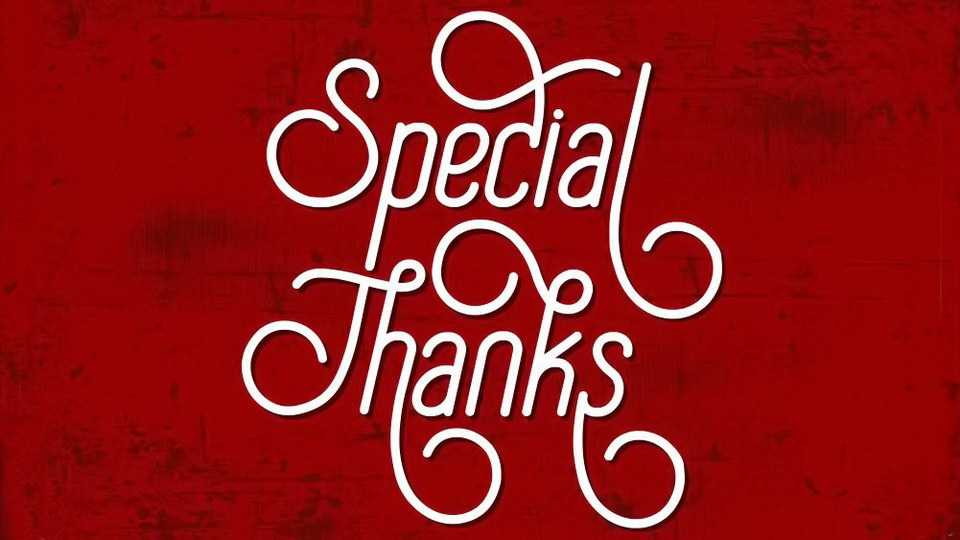
Special Thanks Script Font › Fontesk – Download Grátis
Download Special Thanks font, a charming monoline script with an incredibly artistic vintage feel. It comes with a lot of stylish alternates. Special Thanks font is great for logo, labels, badges, stickers or lettering project and more.